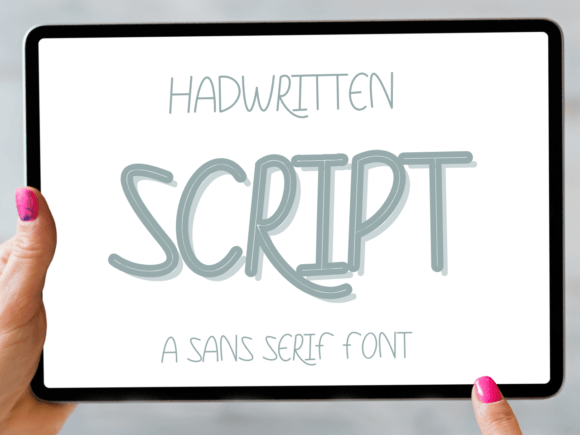
Script: The Friendly Handwritten Font for Every Project
There’s a certain warmth that only a handwritten font can bring to a design. It feels personal, immediate, and human. That’s exactly the space where Script lives. This isn’t a stiff, formal typeface; it’s a sweet and friendly handwritten font with a natural, flowing character. Its unique style has a remarkable versatility, making it a surprisingly practical asset for a huge range of creative work. The only real constraint is your own imagination.
More Than Just Pretty Letters: Understanding Script's Personality
At first glance, Script is approachable. Its letterforms have a gentle, rounded quality that feels inviting rather than demanding. The connections between letters are smooth and organic, mimicking the natural flow of a pen on paper without looking messy or overly casual. This balance is key. It possesses the authenticity of handwriting but with the refined consistency needed for professional applications. Think of it as a script font that bridges the gap between a personal note and a polished design element.
The visual style of Script leans modern yet timeless. It avoids the extremes of overly ornate calligraphy or childish scrawl. Instead, it offers a clean, legible aesthetic that feels current. This makes it a fantastic creative font for projects that need a touch of personality without sacrificing clarity. Its charm lies in its ability to feel both special and everyday at the same time, like a favorite greeting card or a well-loved book inscription.
Where Does Script Truly Shine? Real-World Applications
The strength of a font like Script is its adaptability. It’s not a one-trick pony confined to wedding invitations. Its friendly demeanor makes it a powerful tool across numerous contexts. For brand identity, it can be the heart of a logo design for a boutique bakery, a lifestyle blog, or a handmade crafts shop. It instantly communicates warmth, care, and a personal touch, helping small business owners stand out in a crowded market.
In marketing and social media graphics, Script cuts through the digital noise. Use it for headlines on Instagram posts, email newsletter banners, or promotional flyers to add a human element that grabs attention. Its readability at various sizes makes it suitable for both large display text and smaller callouts, provided you test it carefully. For publishing and editorial design, it can bring life to chapter titles, pull quotes, or magazine headers, adding a layer of personality to otherwise structured layouts.
Don’t overlook its power in packaging design. A handwritten font like Script can make a product label feel artisanal and authentic. It’s perfect for highlighting product names, special flavors, or descriptive phrases on everything from coffee bags to skincare bottles. For personal projects—think custom stationery, event programs, or digital scrapbooking—Script adds that irreplaceable personal signature.
Making Script Work for You: Practical Design Guidance
Choosing a font is a strategic decision. While Script is incredibly fitting, it’s wise to evaluate its suitability for your specific project. Always test it in context. Place it within your layout alongside your other design assets. Does it maintain its charm? Is it legible against your chosen background color and at the intended size? A font that looks beautiful in a specimen sheet might lose its impact if it’s too small or placed over a busy image.
One of the most critical steps is font pairing. Script is a display font with a strong personality, so it often works best when paired with something more neutral. A clean sans serif font is a classic companion, providing a modern, readable counterbalance for body text. A simple, sturdy serif font can also create a beautiful contrast, offering a sense of tradition and formality. The goal is to let Script be the star for headlines or key phrases while the supporting typeface handles the heavy lifting of paragraphs.
Before you commit, review the font’s full character set and any included styles. Does it have the punctuation and symbols you need? Are there alternate characters or ligatures that can add variety? This level of detail is what separates a good design from a great one. Furthermore, if your project is commercial—like a client’s logo, a product for sale, or a monetized website—ensure you are using a properly licensed commercial font. This protects you legally and supports the type designers who create these valuable tools.
Ultimately, Script is more than just another handwritten font. It’s a versatile piece of modern typography that can inject warmth, authenticity, and personality into a wide array of projects. By understanding its strengths and applying it thoughtfully, you can leverage its friendly character to create more engaging, memorable, and human-centered designs. Whether you’re crafting a brand identity, designing marketing materials, or adding a personal touch to a publication, this script font is a worthy and flexible addition to your typographic toolkit.